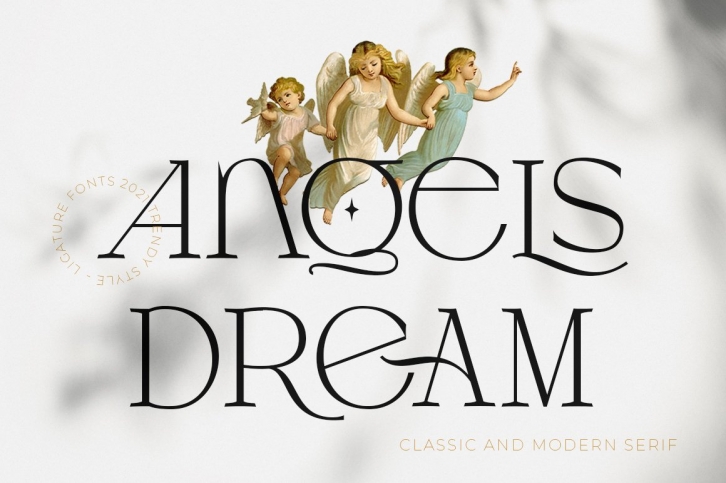
Nice to present, a Serif Ligature called : Angels Dream
A new ligature serif font with lots of alternative that will bring your projects a touch of classic and modern style. Recomended for logotypes, branding, wedding monograms and invitations, blog headlines and much more. Flip through all the previews and get inspired like I was while creating this font.
Angels Dream already PUA encoded which means you can access all of the amazing alternatives and ligatures with ease!